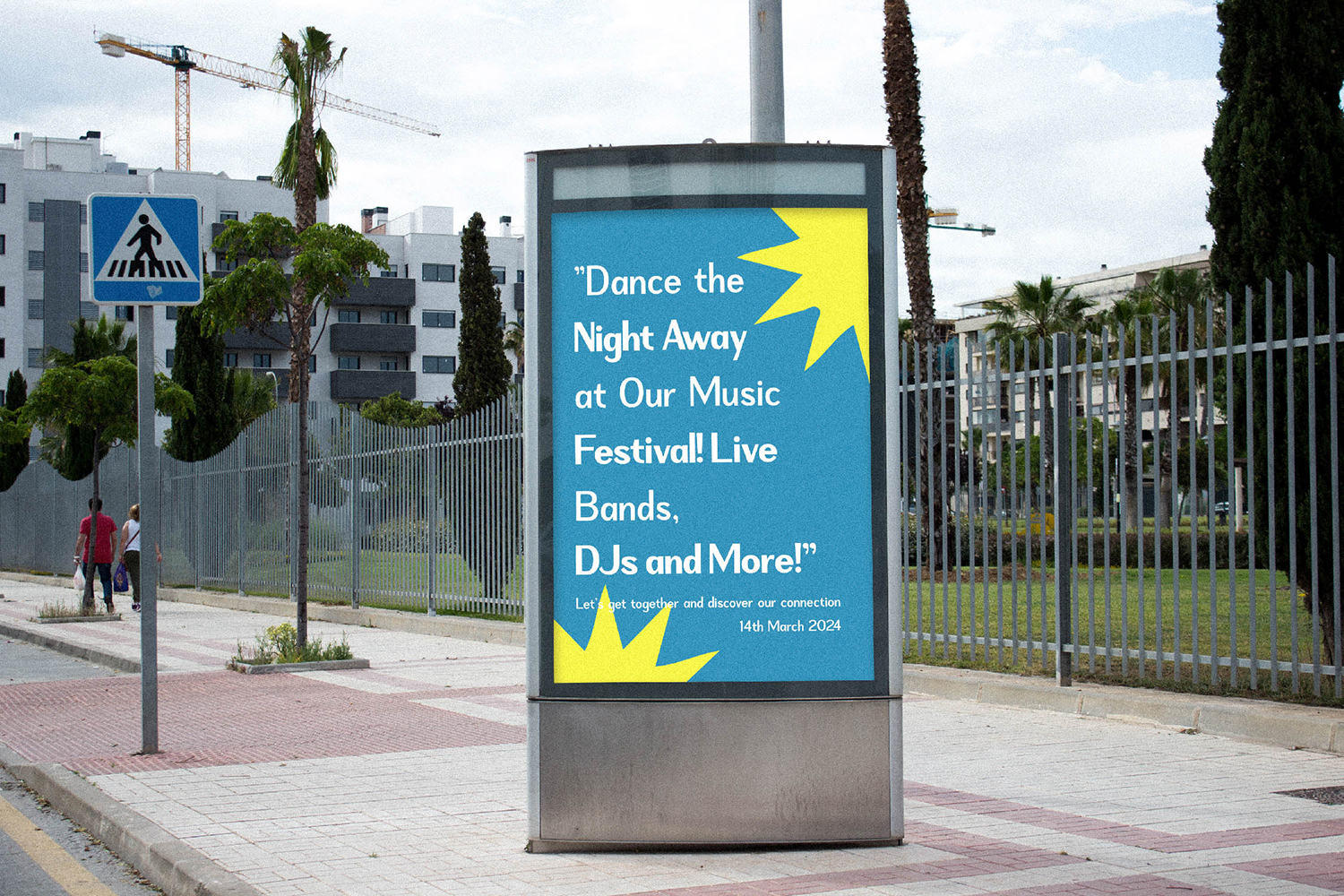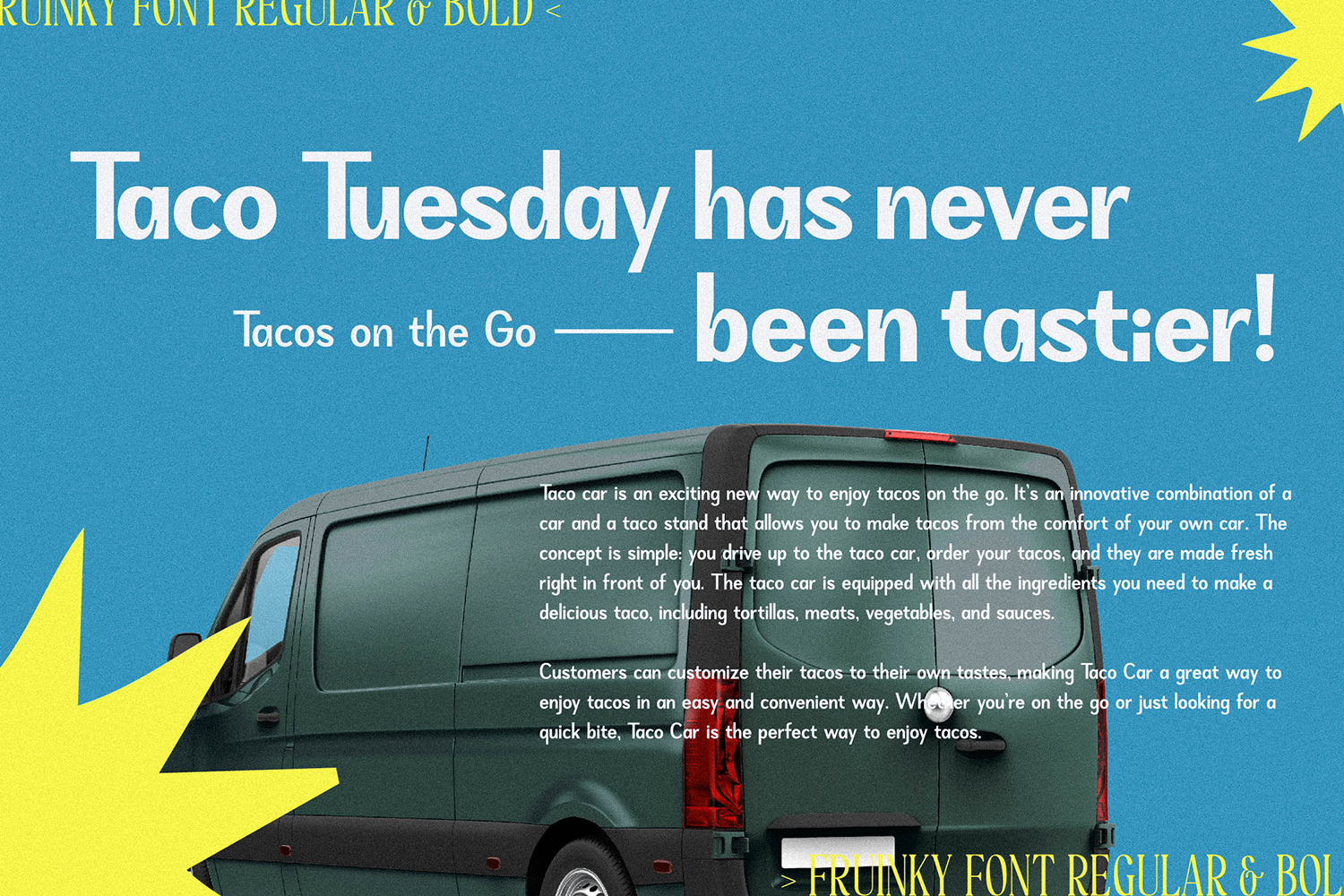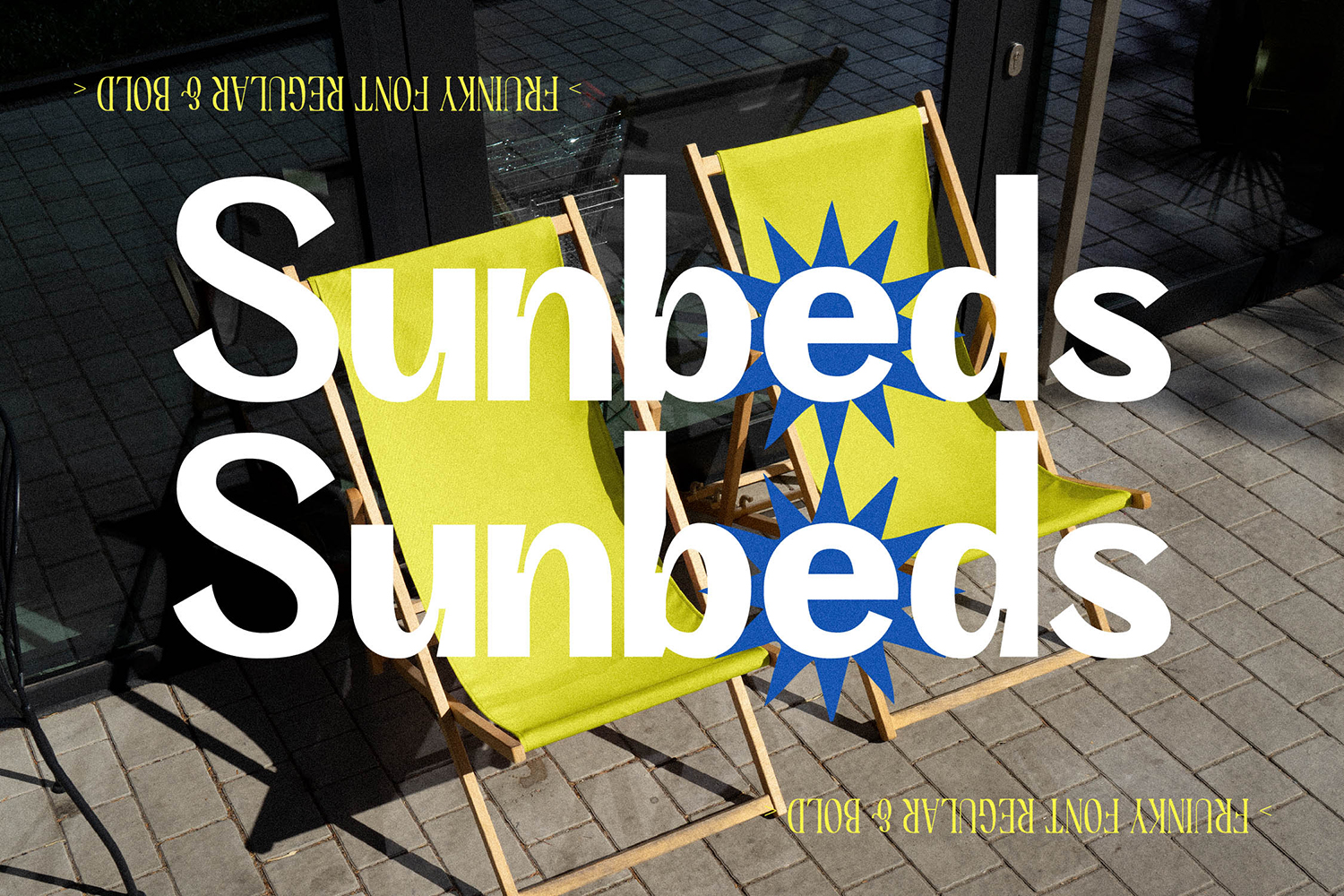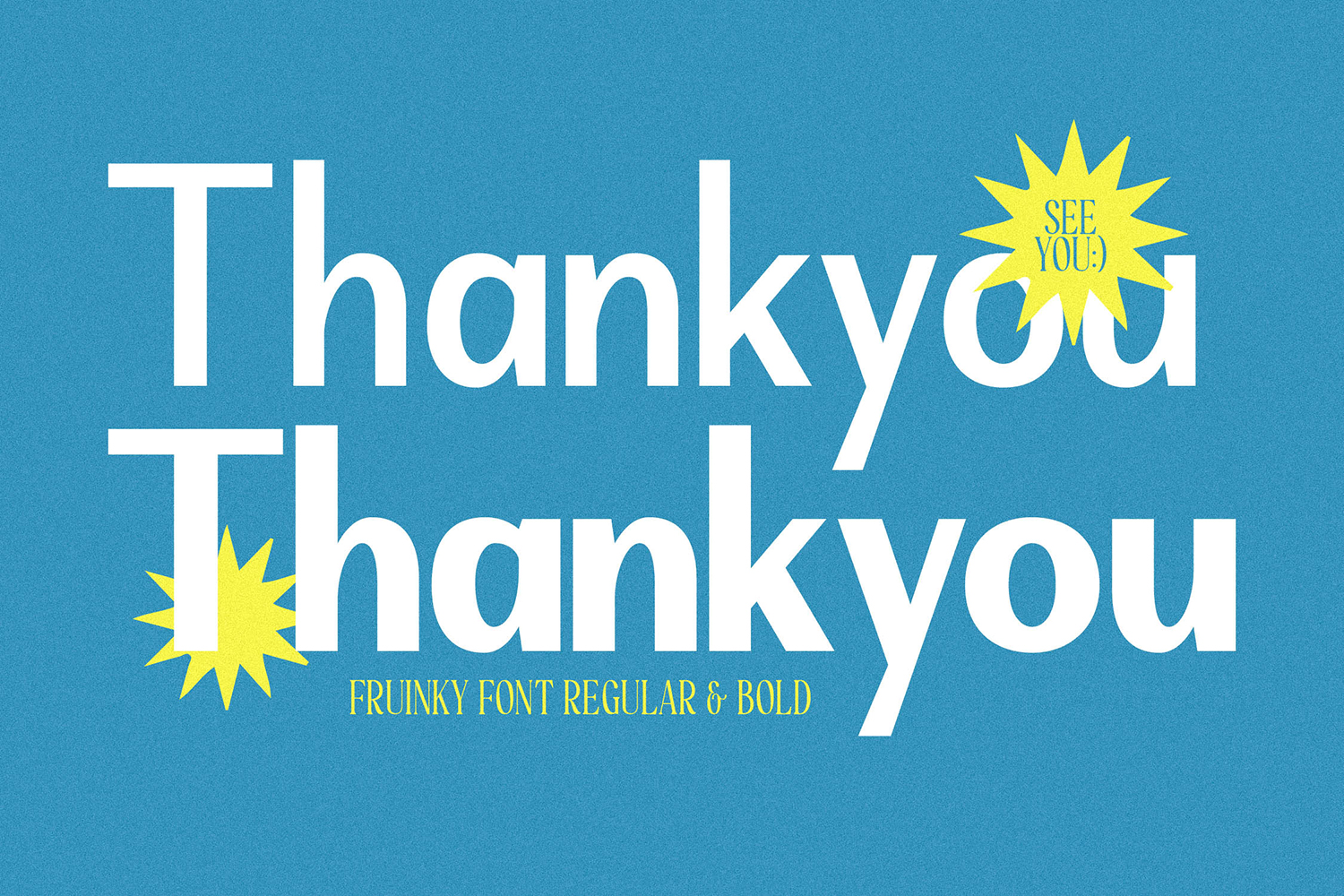
Fruinky Free Font
Fruinky Free Font is a modern and stylish serif font that has its own unique appearance. This typeface is perfect for an elegant and luxurious logo, fashion brands, magazines, apparel, lettering, quotes, and so much more. This free typeface was designed by a talented Storytype Studio. If you like it don’t forget to check out the full version.